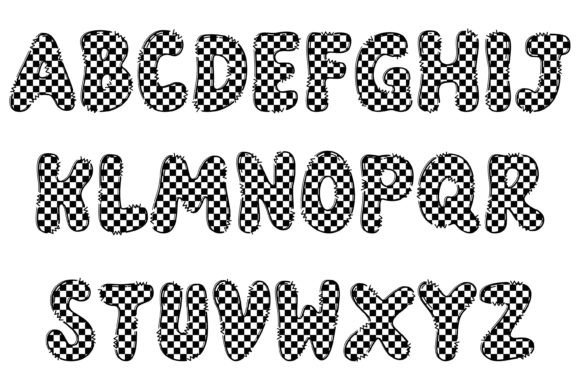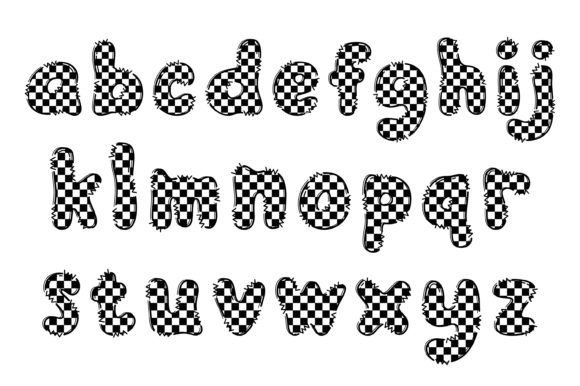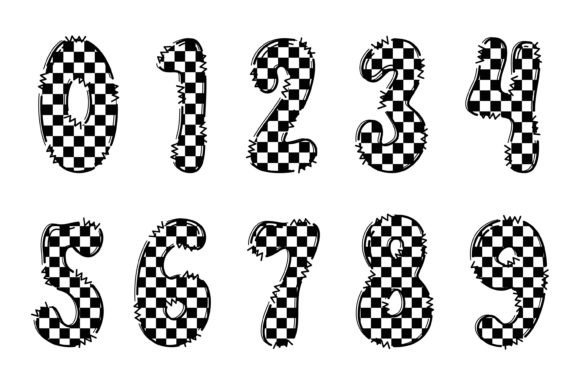
The Perfect Mix of Playfulness and Readability: Checker Board Font
Have you ever stared at a blank page, struggling to come up with the perfect design for a children’s book or a birthday invitation? The creative block can be frustrating, but it’s moments like these that remind us why we love designing in the first place. The thrill of bringing an idea to life, of watching it come together in a way that delights and inspires others.
That’s where the Checker Board Font comes in – a versatile and engaging typeface that’s sure to add a playful touch to your designs. With its unique, grid-like pattern, this font is perfect for creating eye-catching graphics and text that’s easy to read. Whether you’re working on a children’s book, a poster, or a greeting card, the Checker Board Font is a valuable addition to your design toolkit.
Designers, take note: this font is a must-have for anyone looking to add a touch of whimsy and creativity to their projects. And with its compatibility with popular design programs like Cricut Design Space and PhotoShop, you’ll be able to bring your designs to life with ease.
Checker Board Font Key Features
- Font Style: Checker Board Font is a unique, decorative font that resembles a checkerboard pattern.
- Font Size and Resolution: Checker Board Font is designed for use at medium to large font sizes (18-72 points), with a recommended resolution of 300 DPI for optimal display.
- Unique Characteristics: The font’s distinctive checkerboard pattern creates a visually striking effect, making it ideal for use in titles, headings, and other design elements where emphasis is needed.
Designer Review: Checker Board Font
Checker Board Font is a unique and eye-catching font that’s sure to grab attention. ✨ The bold, grid-like design is reminiscent of a classic checkerboard, making it perfect for projects that need a bit of visual interest. I particularly like the way the font scales, maintaining its distinctive pattern even at smaller sizes. ✨
- Uniquely designed grid pattern adds visual interest
- Well-suited for projects requiring bold, eye-catching text
- Scalable design maintains its pattern at various sizes
However, there are some limitations to consider. ⚠️ The font’s grid-like design can be overwhelming if used extensively, and it may not be the best choice for projects that require a more subtle approach. Additionally, the font’s boldness can make it difficult to read at very small sizes. ⚠️
- May be overwhelming if used extensively
- Not ideal for projects requiring subtle text
- Difficult to read at very small sizes
Overall, Checker Board Font is a great choice for projects that need a bold, eye-catching font. While it may not be suitable for every project, its unique design makes it a great option for those looking to add some visual interest to their work.
The Checker Board font is commonly used in designs that require a playful, modern look. It’s ideal for creating eye-catching headlines, titles, or captions. It’s also great for adding a fun touch to infographics, posters, or social media graphics.